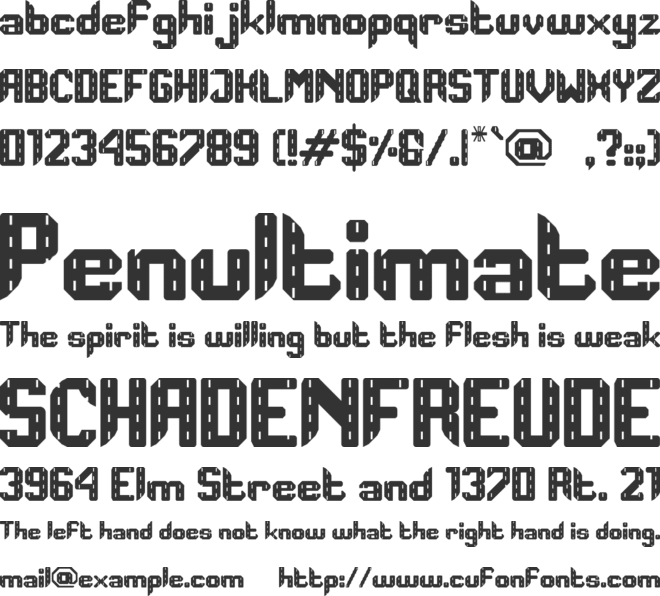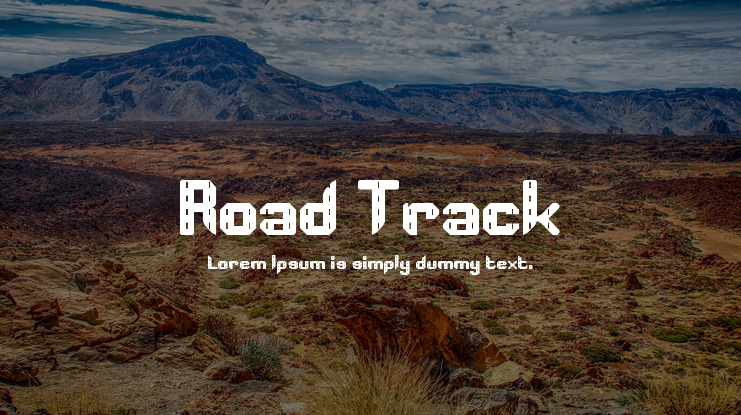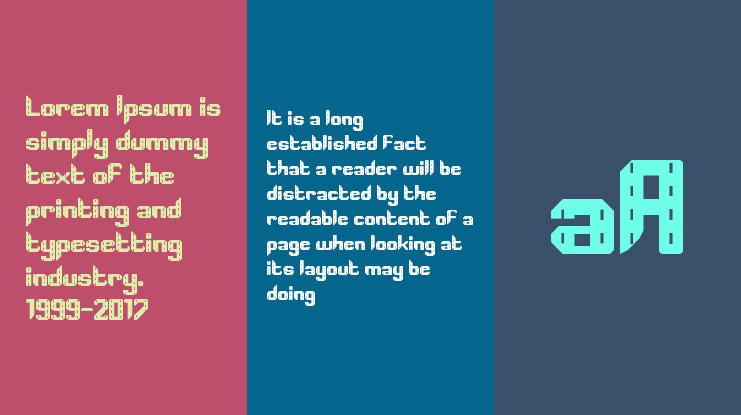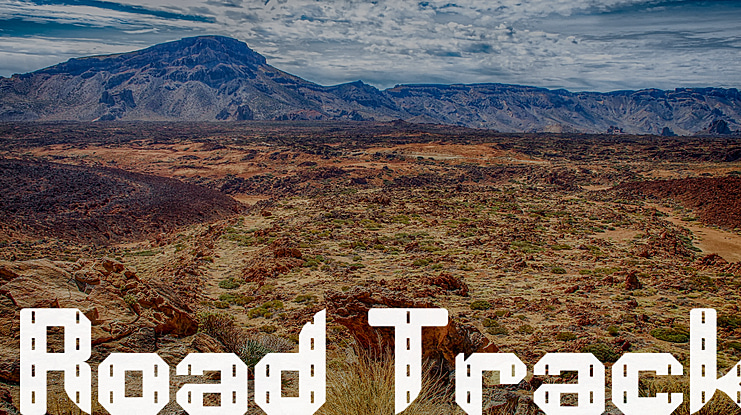
Road Track Font
This Road Track Font is inspired by the road stripes and it also has that kind of "rapid feeling" when we take a look at it, because of the pointed line in some letters.